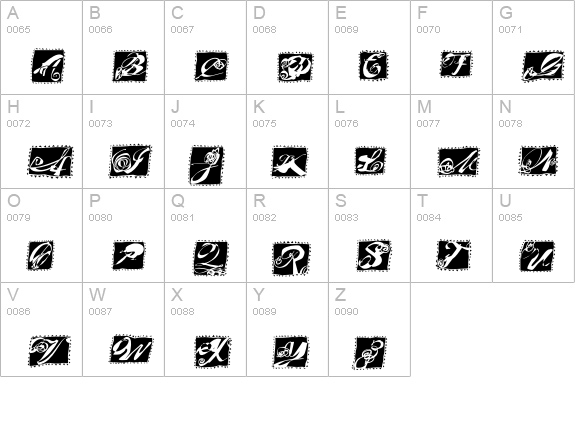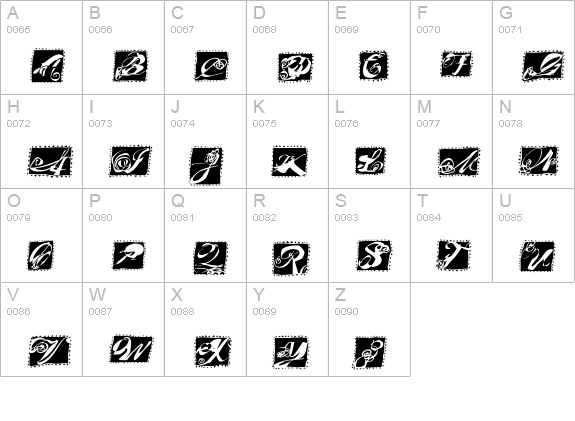
Masterpiece-Initials Font Details
Introducing Masterpiece-Initials, a truly exceptional font that exudes elegance and sophistication. This font is a true masterpiece, crafted with immense attention to detail to bring a touch of class to your designs. Masterpiece-Initials is the perfect choice for those seeking a font that effortlessly captures attention and leaves a lasting impression. Its intricate and ornate letterforms are reminiscent of a bygone era, evoking a sense of timeless beauty. With its unique and distinctive style, Masterpiece-Initials adds a touch of luxury to any project. Whether you're designing invitations, logos, posters, or any other creative endeavor, this font will elevate your work to new heights. What makes Masterpiece-Initials even more remarkable is that it is available for free! Yes, you read that right. This premium font can be freely downloaded at FontsMarket.com, allowing you to access its unparalleled beauty without breaking the bank. Downloading Masterpiece-Initials is a breeze, ensuring that you can quickly incorporate this font into your projects and start experiencing the elegance it brings. Its versatility allows it to seamlessly blend with various design styles, making it an ideal choice for both traditional and contemporary designs. So, why settle for ordinary when you can adorn your creations with the extraordinary? Download Masterpiece-Initials today and unlock a world of elegance and sophistication for your designs. Don't miss out on this opportunity to enhance your work with a font that truly embodies perfection. Experience the beauty of Masterpiece-Initials, freely available at FontsMarket.com.